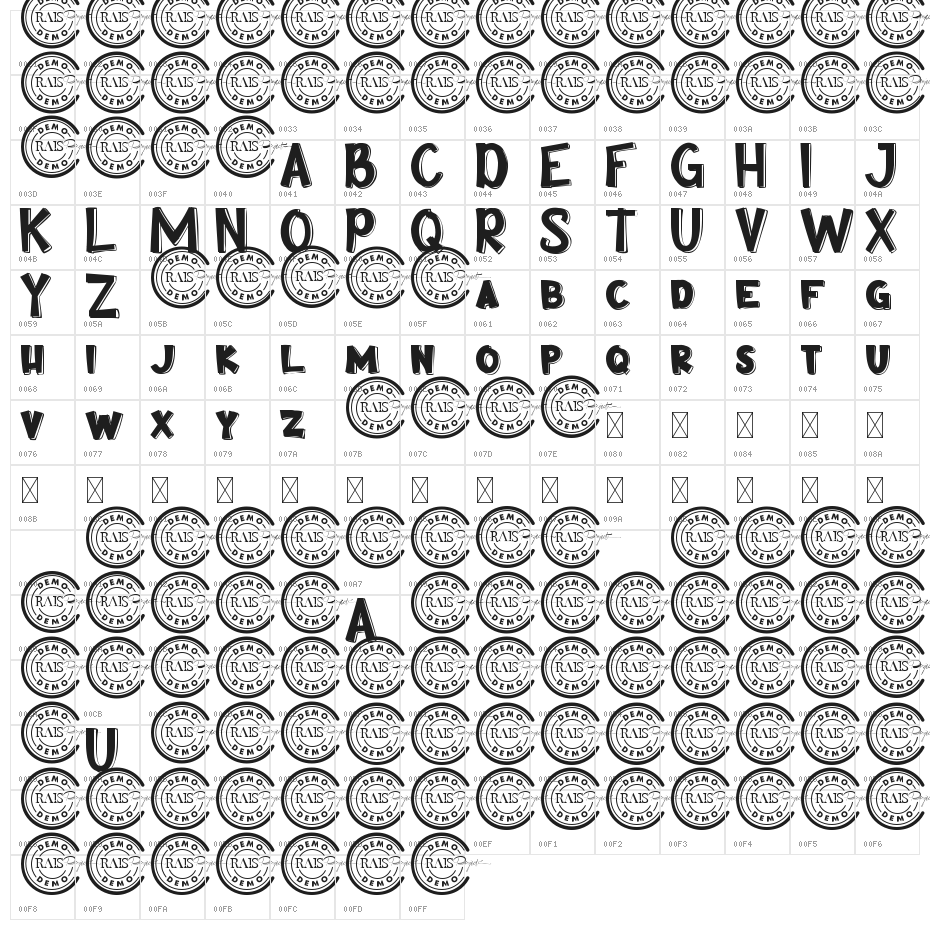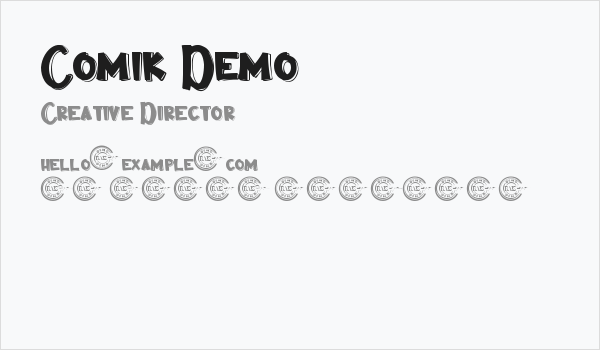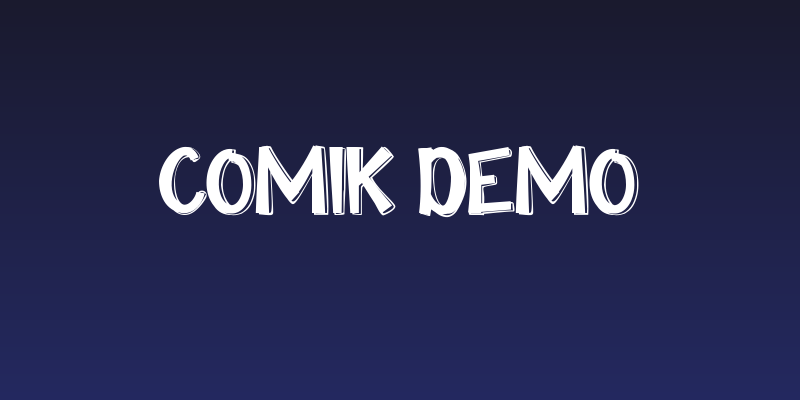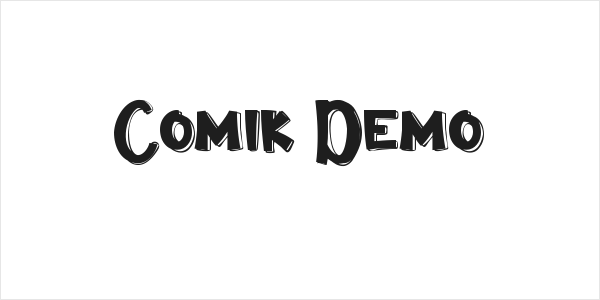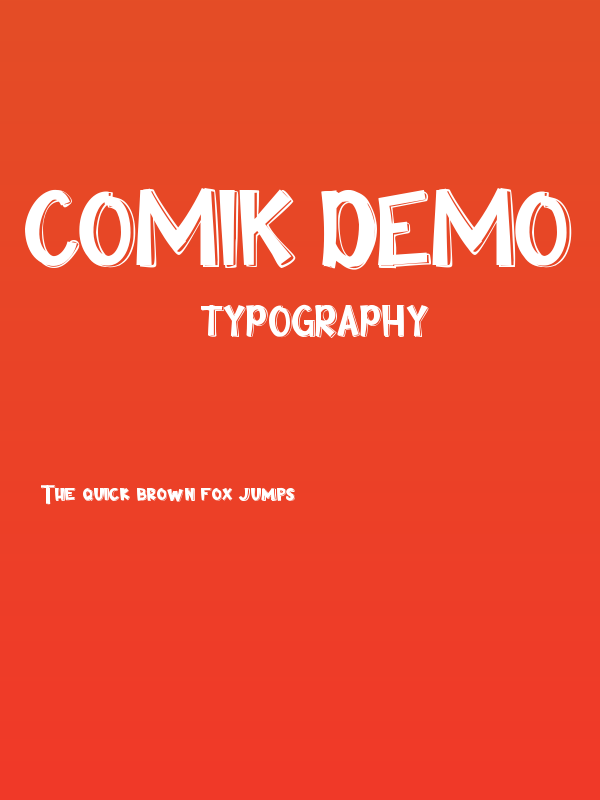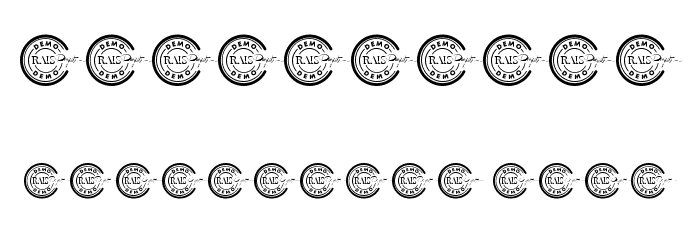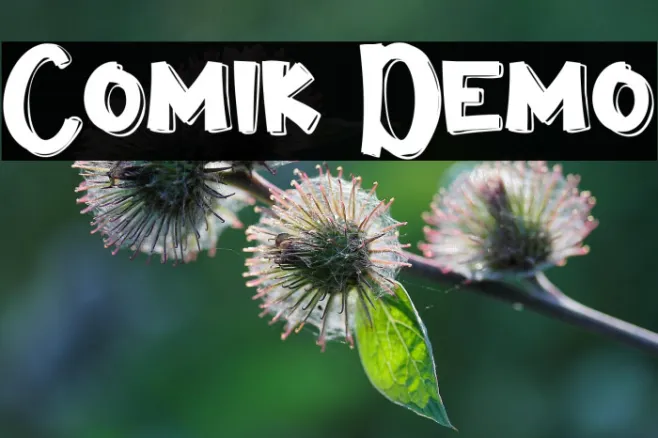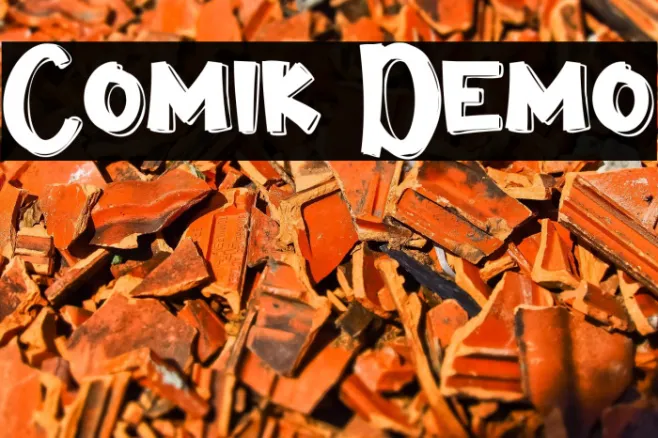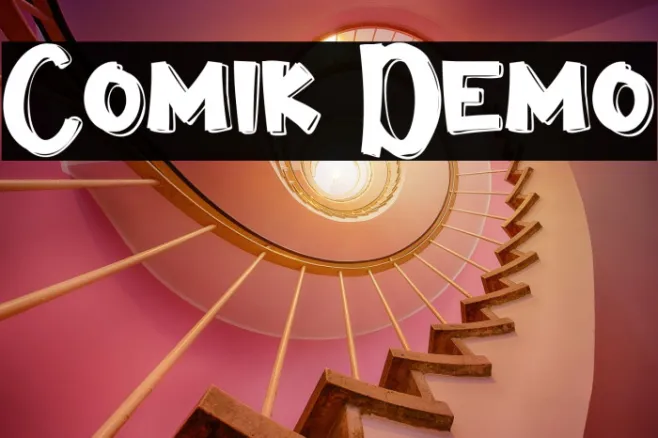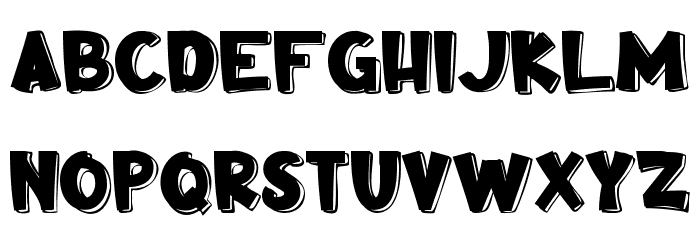
Comik Demo Font
Comik Demo Description
This font features a playful and bold style, reminiscent of comic book lettering. The characters are thick and slightly irregular, giving them a hand-drawn appearance. The uppercase letters are prominent and dynamic, with a slight tilt that adds to the energetic feel. The strokes are consistent in weight, providing a uniform look across all characters. This font is designed to capture attention and convey a sense of fun and creativity. The overall design is clean yet informal, making it suitable for a variety of lighthearted and engaging projects.
| Overall Style | Playful, Comic |
| Proposed Projects | Ideal for comic books, children's books, playful branding, posters, and casual invitations. |